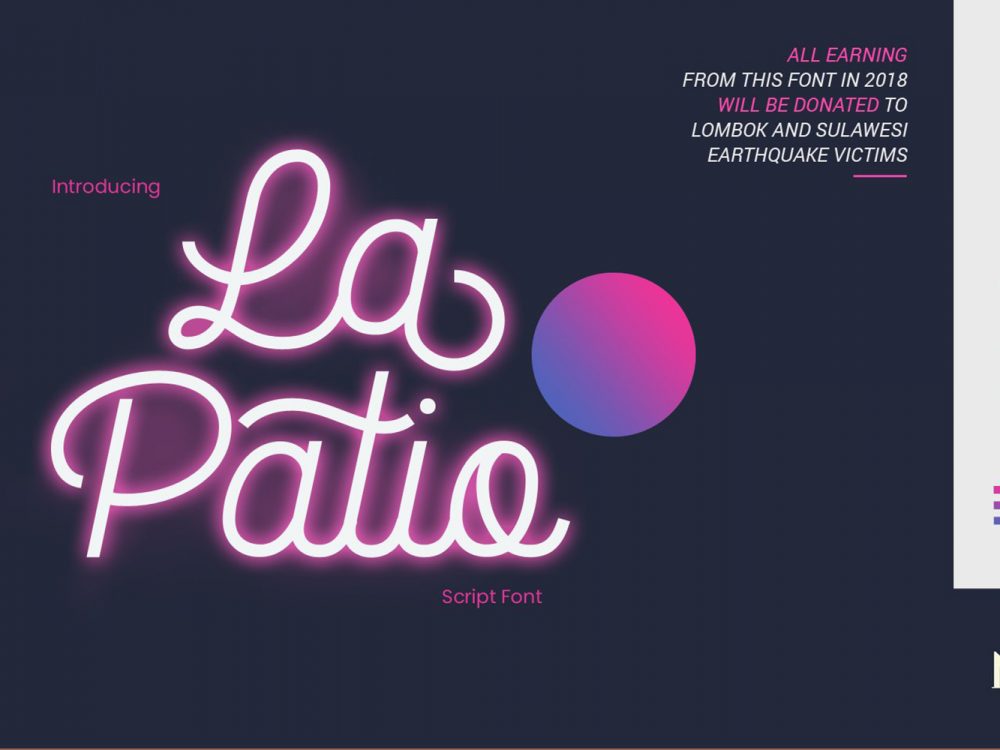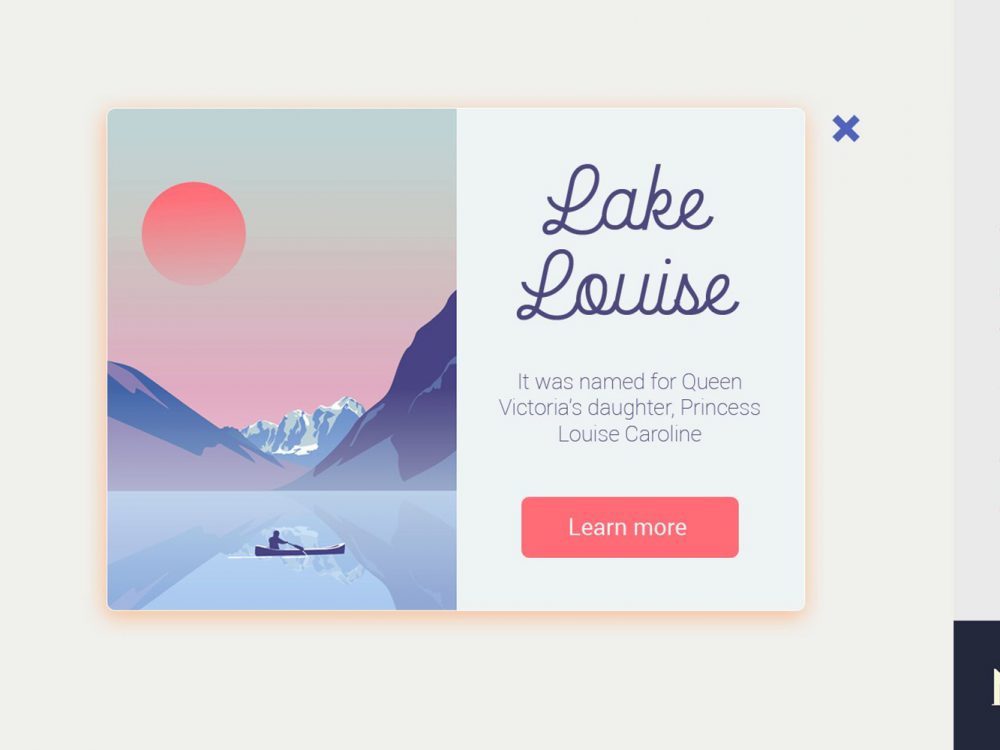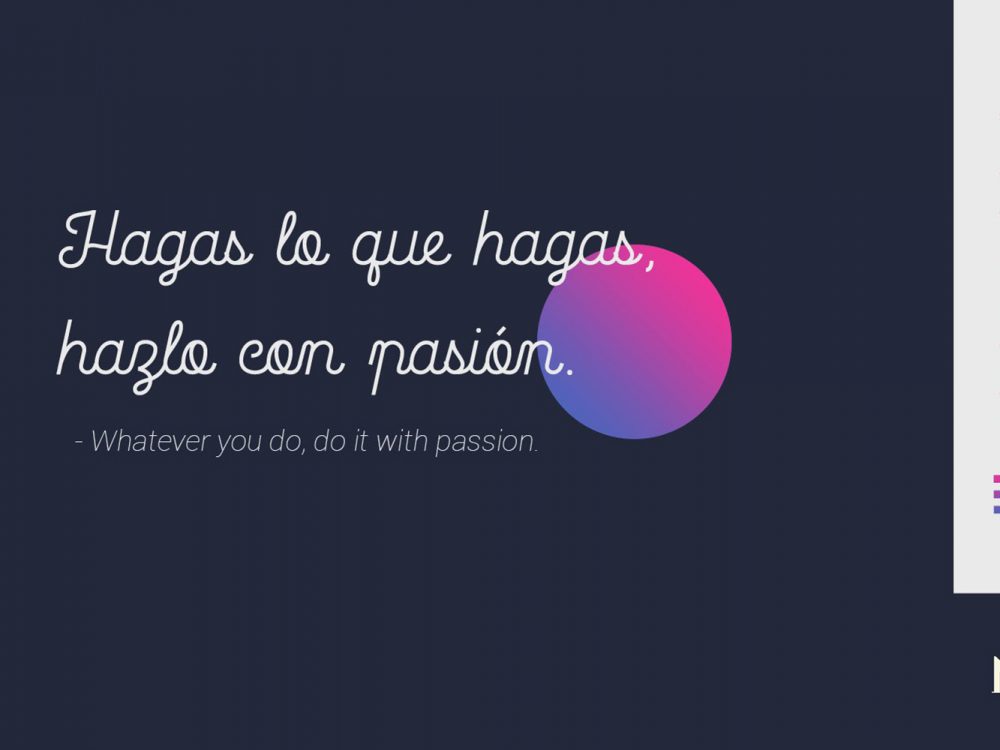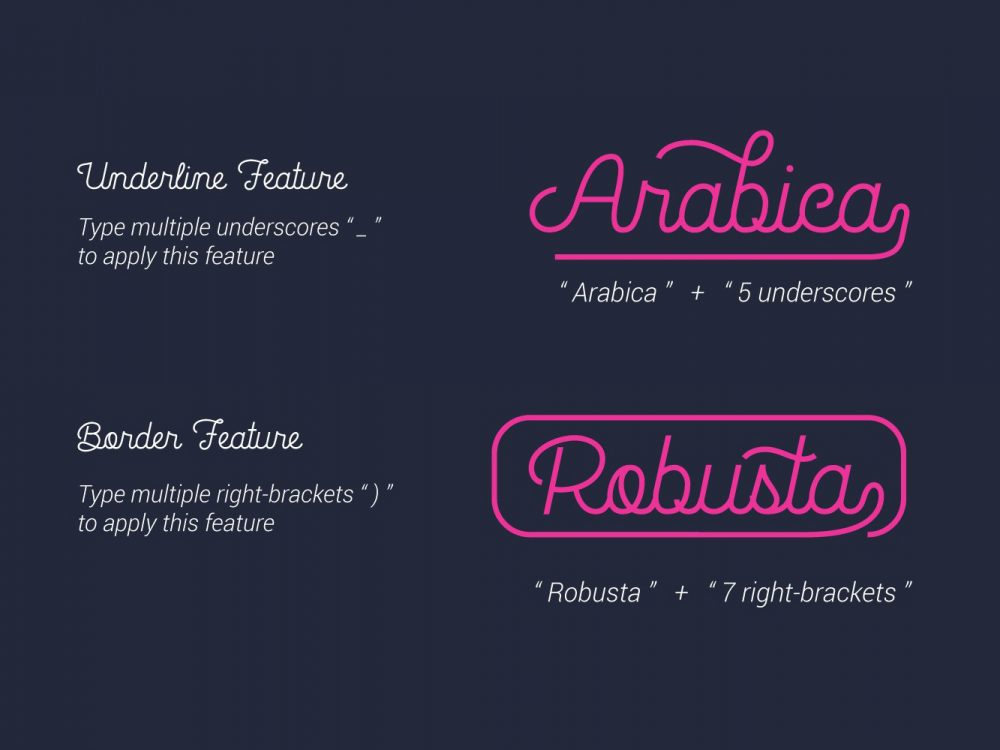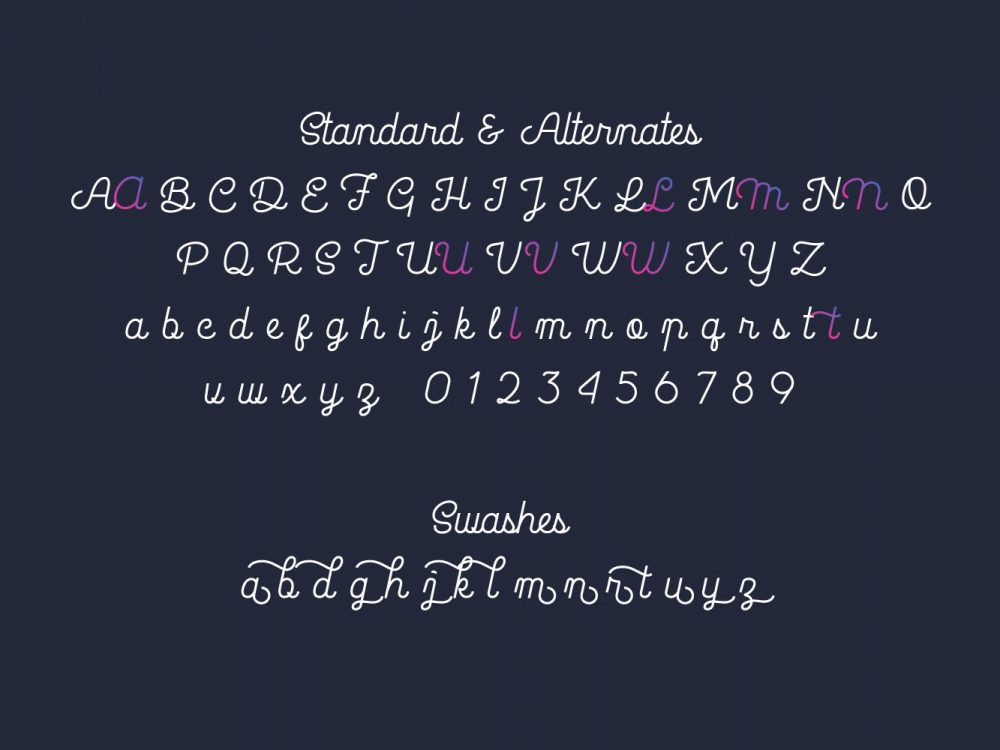
La Patio Script Free Demo Font
La Patio Script Free Demo Font is an interesting modern font with a monolithic style reminiscent of lace and is very well suited for creating various design projects in neon style. Use this font to create unique and memorable posters, neon signs, invitations, cards, branding, flyers, and more. If you like it and want more features and use in your next commercial project check out the full version here.